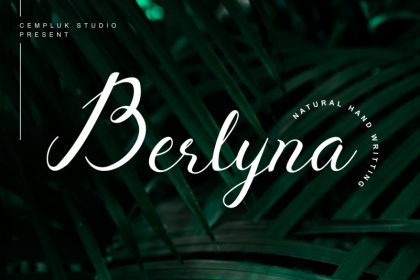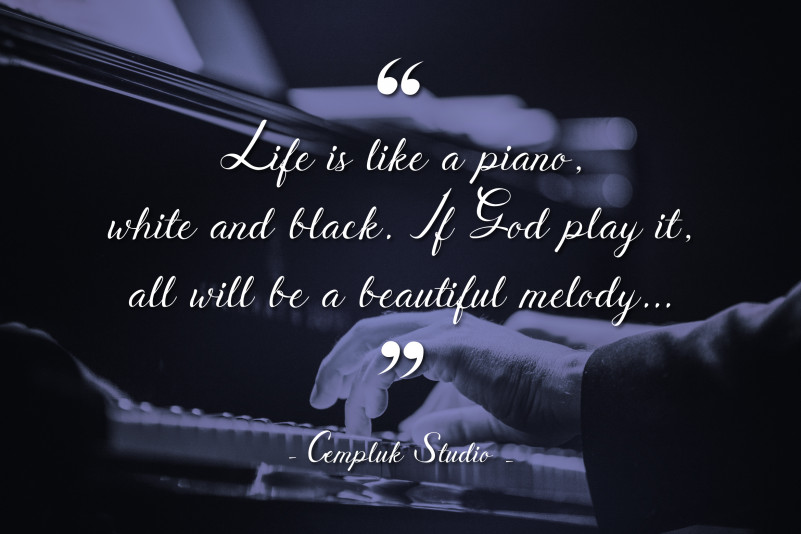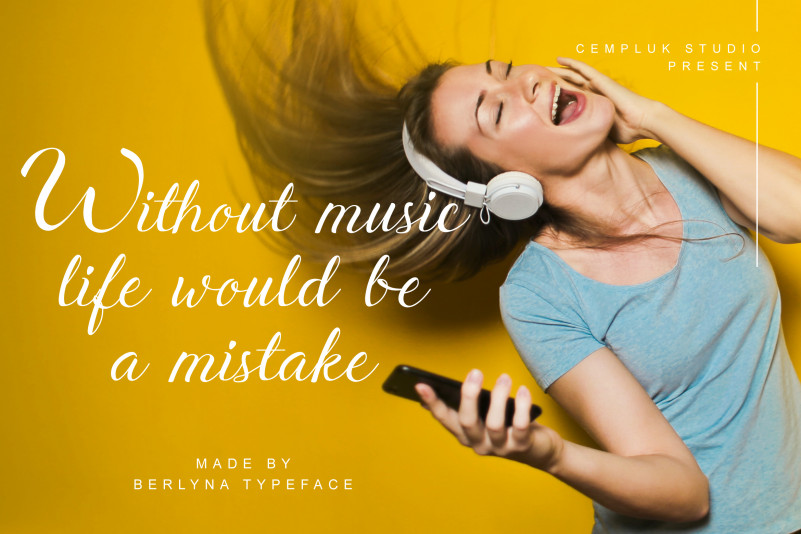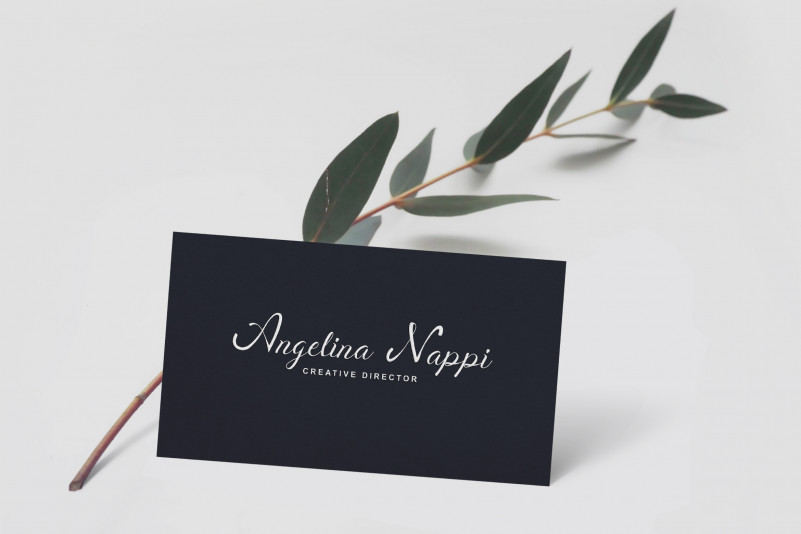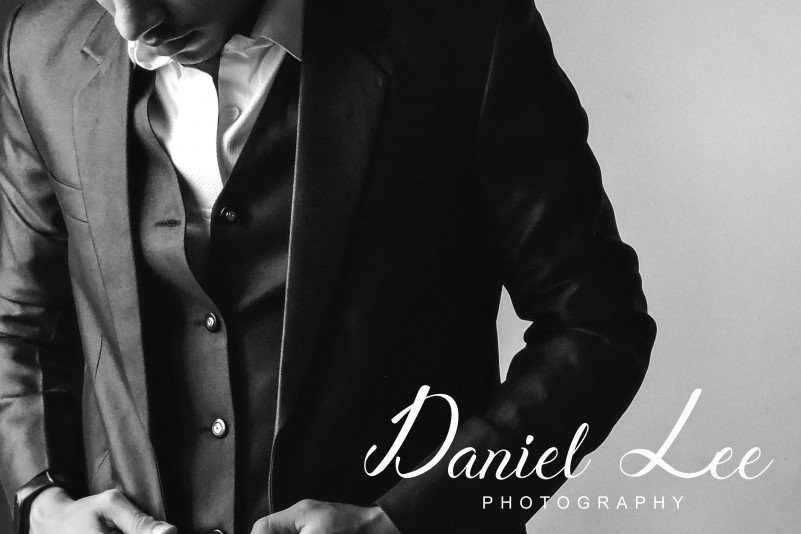
Berlyna – Modern Script Font
Introducing Berlyna – Modern Script Font This Font can be used for any variety of purposes, such as: photography, Wedding, Packaging Products, Logo Type, Branding, T-Shirt Design, Website/Blog, Cover Magazine, Brochures and also can be used for personal purpose.